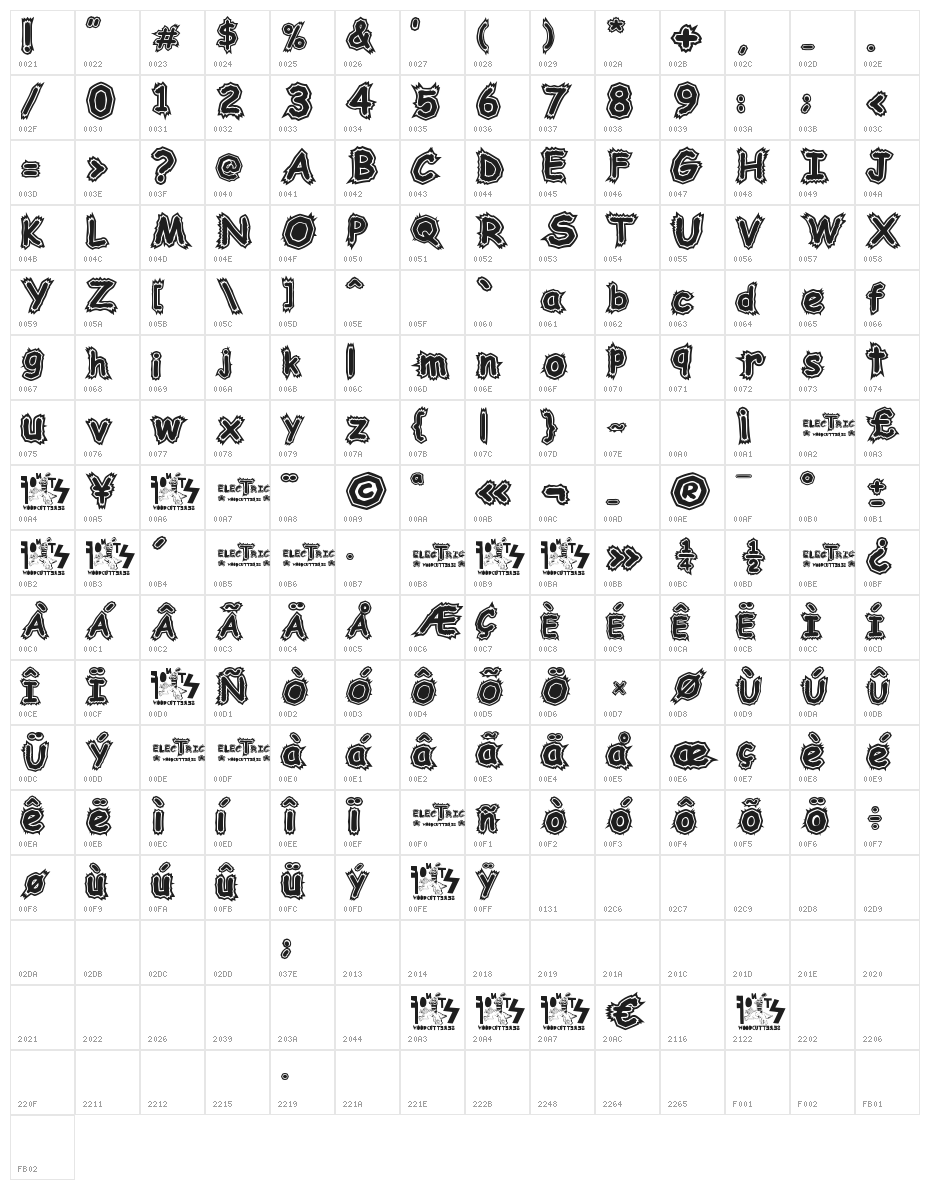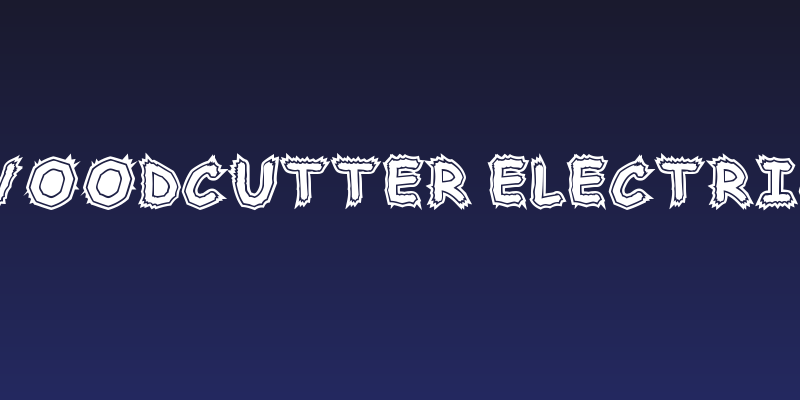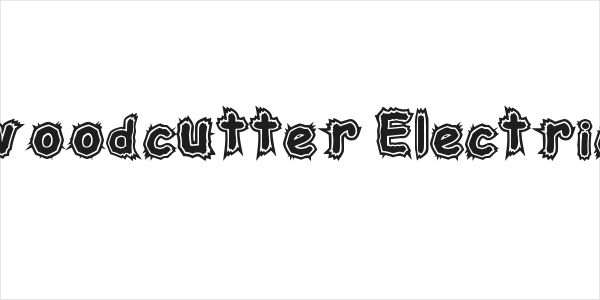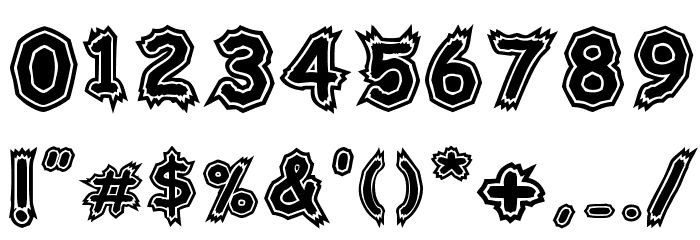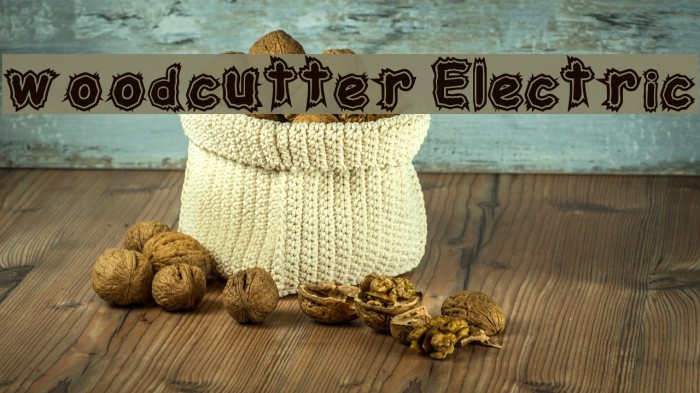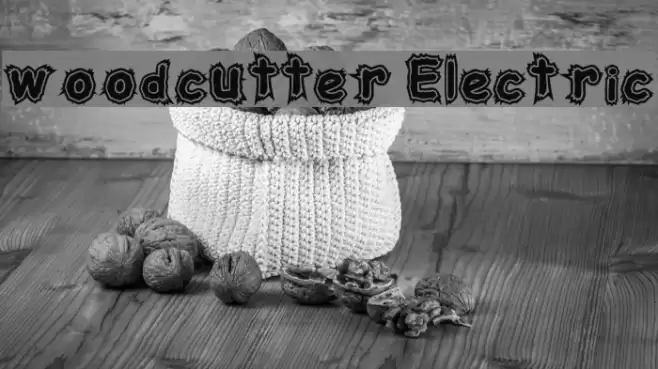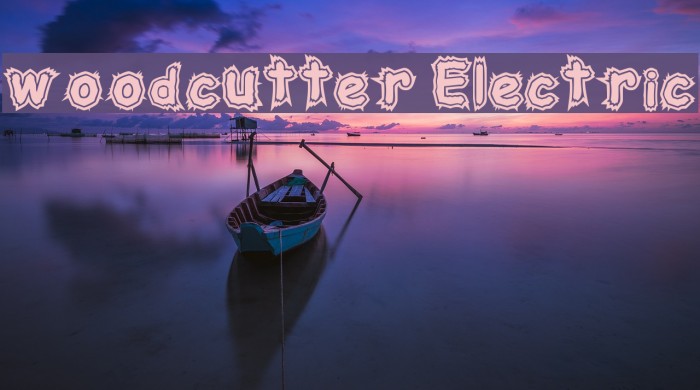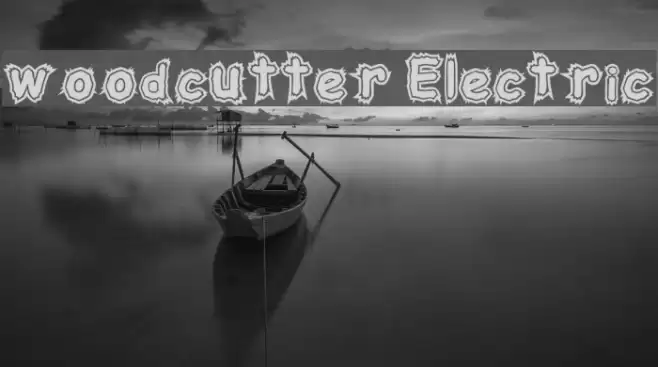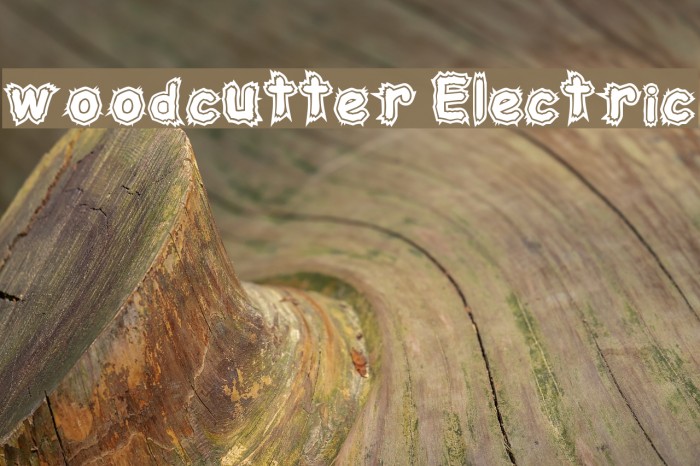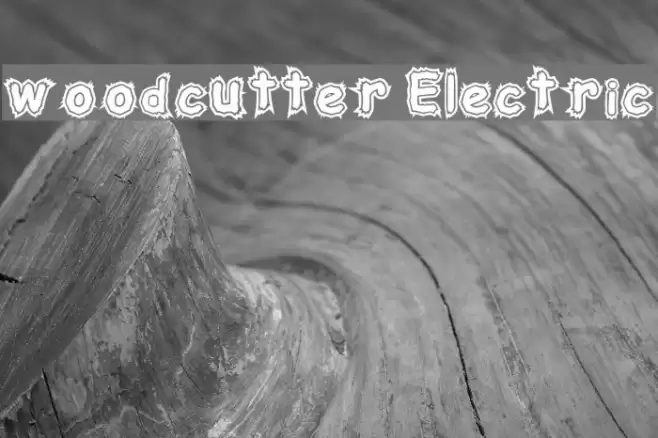
woodcutter Electric Font
woodcutter Electric Description
This font features a bold, jagged design that mimics the appearance of electric currents or lightning bolts. Each character is outlined with sharp, irregular edges, giving it a dynamic and energetic feel. The uppercase and lowercase letters maintain a consistent style, with the uppercase being slightly larger and more pronounced. Numbers and special characters follow the same electrifying theme, ensuring a cohesive look across all text. The font's unique style makes it stand out, ideal for projects that require a striking and unconventional appearance.
| Proposed Projects | Perfect for Halloween themes, comic book titles, video game graphics, and event posters. |